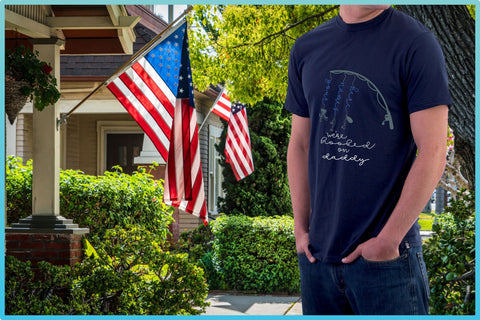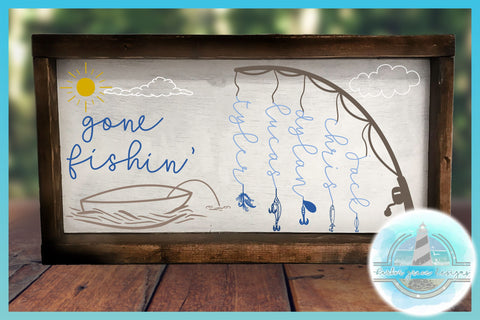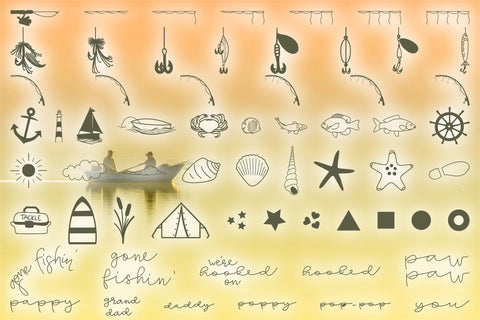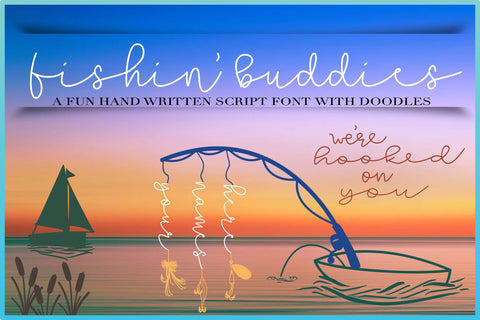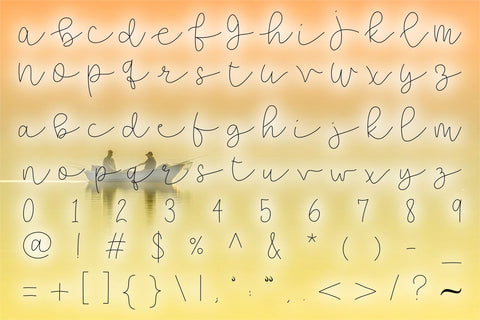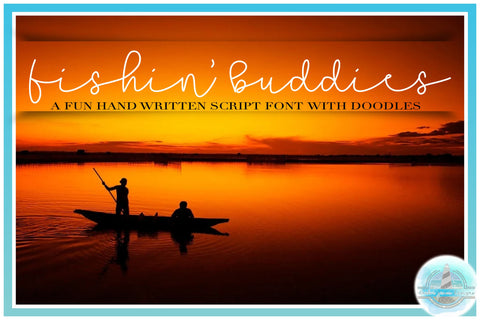
Fishin' Buddies Hand Written Script Font PLUS Doodles
This listing includes the ‘Fishin' Buddies Hand Written Script Font PLUS Doodles’ by Harbor Grace Designs (formerly SVGcraze).
Fishin' Buddies is a handwritten script font with lots of options!
Perfect for creating one-of-a-kind gifts for the fishing enthusiast in your life!!
The Fishin' Buddies Doodles font includes 61 different fishing day elements!